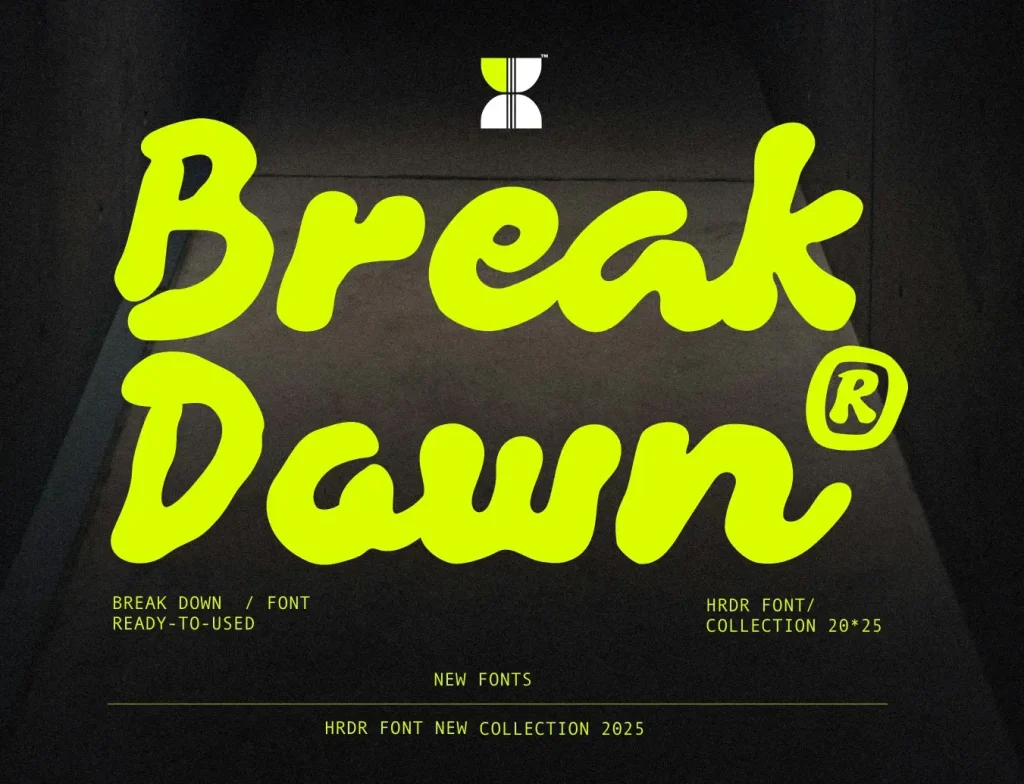
Break Down is a free, bold script font created by HRDR STUDIO for designers seeking a retro yet elegant feel.
It helps you craft expressive, eye-catching typography for logos, headlines, and branding projects.
Features
- Uppercase & Lowercase Characters
- Numerals & Multilingual Support
- Automatic Ligatures
- Stylistic Alternates (SS01 Set)
Use Cases
- Designing a groovy, 70s-inspired headline for a music festival poster.
- Creating a distinctive and friendly wordmark for a new coffee shop’s branding package.
- Crafting elegant, oversized quotes for a social media carousel post.
- Adding a personal, handwritten touch to packaging for an artisanal food product.
- Generating unique t-shirt graphics with a playful, retro vibe.